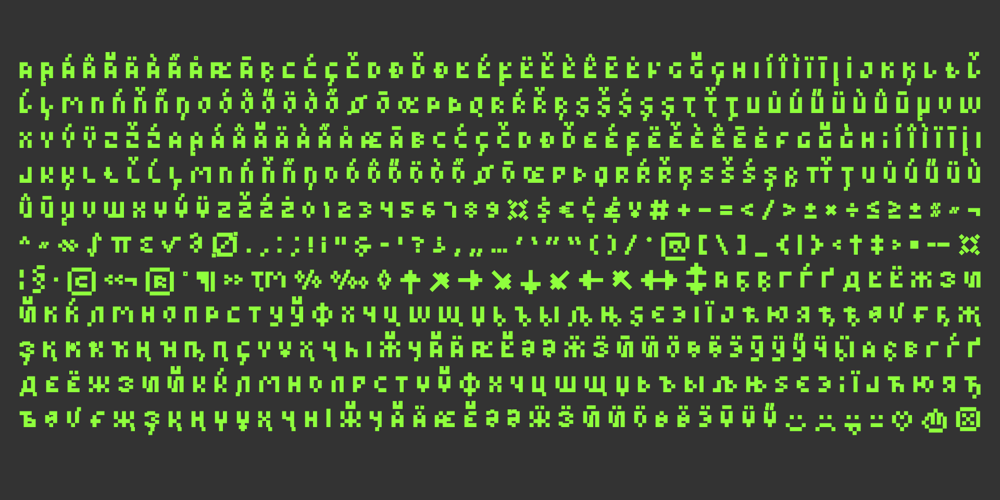
Protocol
Protocol font
Protocol Font Family was designed by Rômulo Gobira and published by Rômulo Gobira. Protocol contains 1 styles and family package options. Protocol is an experimental pixelated font, which allows you to easily experiment and to combine it with other typefaces. This version (1.0) comes with 580+ glyphs, multiple language support and some unique emoji characters.